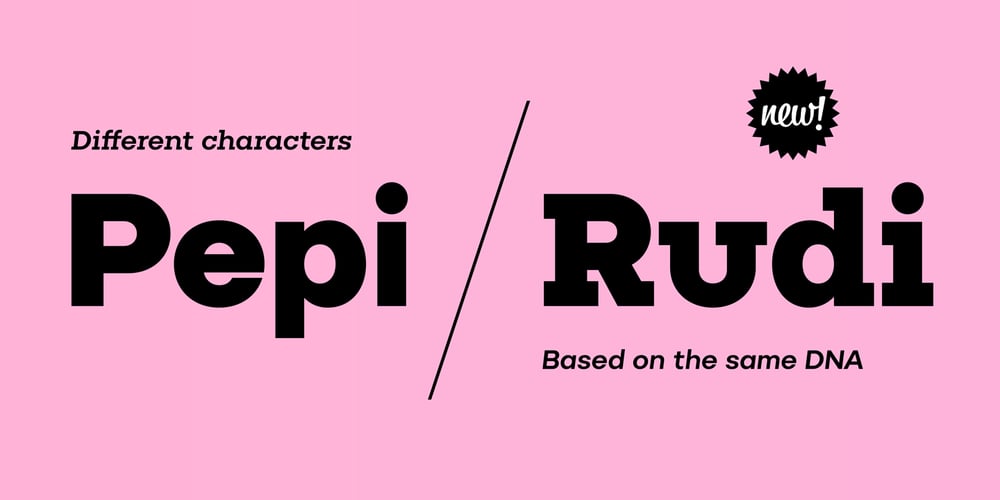
Pepi/Rudi Font Family was designed by Tomáš Brousil and published by Suitcase Type Foundry. Pepi/Rudi contains 40 styles and family package options. The superfamily Pepi and Rudi is based on playful experimentation with basic geometric shapes – the circle, rectangle and triangle – elements that laid the foundations for typographic Modernism. The Pepi and Rudi introduces a number of current elements into a time-proven concept of primitively constructed typefaces. The typeface’s somewhat uniform character width establishes a more regular rhythm; the character set is expanded, and legibility is improved thanks to taller lowercase. A wide range of ten styles, from hairline-thin to extra-thick with adequate Italics allow for universal use across the whole scope of graphic design. Carefully designed diacritics, clear punctuation marks, table number characters, ligatures, arrows or alternative lowercase characters are standard; this is sure to please everyone needing to work effectively with a neutral, geometric headline typeface.